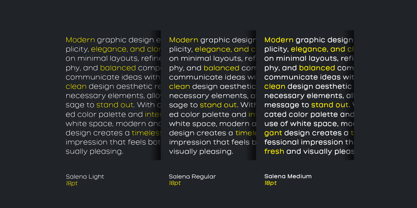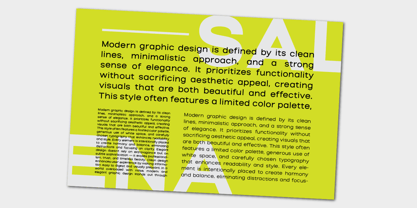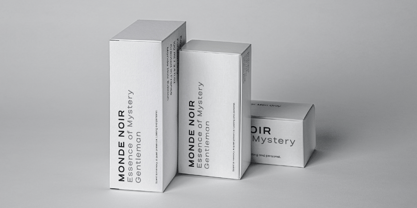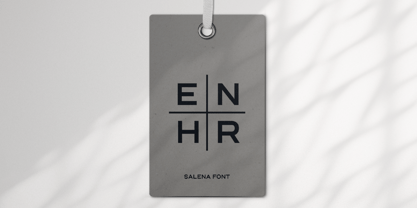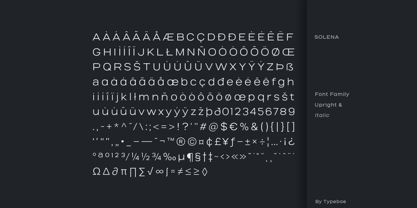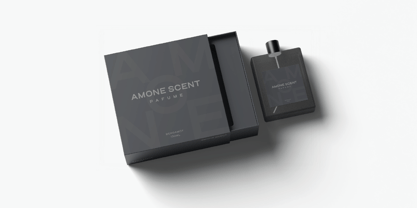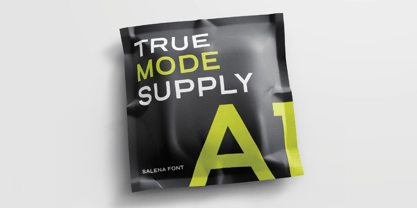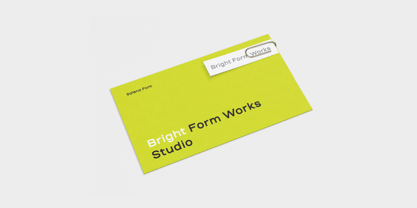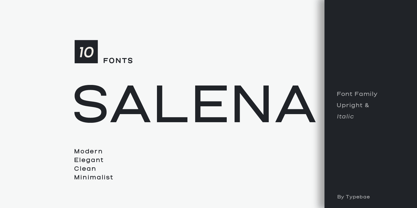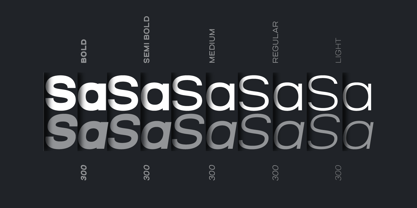
Salena
by Typebae
The Salena Font Family was designed by Iqbal Pauji and published by Typebae. Salena contains 10 styles and family package options. More about this family
Salena is a minimalist sans serif font family designed for modern elegance and visual clarity. Its clean lines and refined curves make it perfect for logotypes, branding, headlines, and editorial use. With a balanced structure and contemporary feel, Salena adds sophistication to any design while remaining versatile and highly legible. Ideal for designers seeking a timeless and sleek typographic solution.
Designers: Iqbal Pauji
Foundry: Typebae